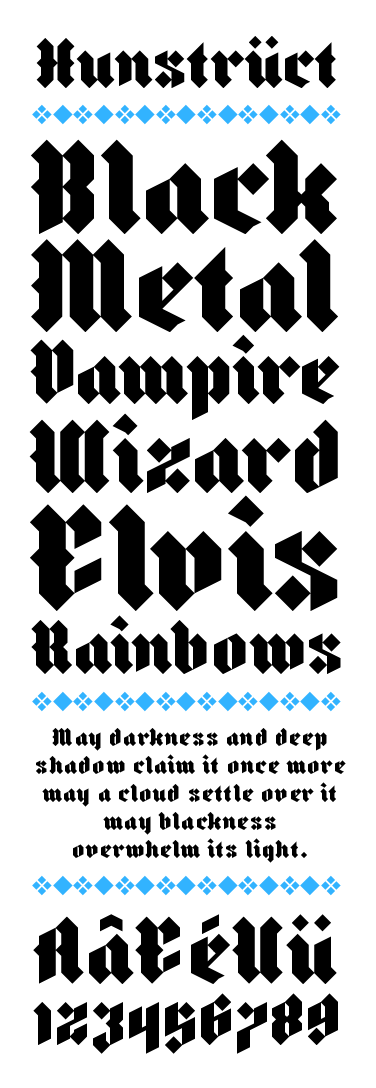
• Hunstrüct is my first attempt at designing a contemporary blackletter typeface within Fontstruct. The typeface draws inspiration from the long tradition of German Fraktur styled blackletters. The name Hunstrück is taken from a mountain range in Germany called the Hunsrück. Primarily I was aiming to build a face that would work well as a display type for gig posters and larger headlines but as I reworked the typeface I tried to strike a balance between text and display.
As for the kerning: definitely a font that could benefit from a letter-to-letter kerning function... Rumor has it this is on the roadmap for a future version of fontstruct.
I wish I had the same understanding of Blackletter styles to create something as good as this one, but I'm kind of "font blind" in that area. I'm a sans kind of guy :)
I love how the 2 diagonals in the upper left of the a, o, q and 8 make a subtle curve.
And I also dig how the circles around @ and copyright glyphs got solved. Simple yet very practical.
Have you sorted out the advanced spacing with it yet, as a few letters look a bit suspect.
I love the way how you've used the two angles to your advantage. Very pleasant result. The i j dots and the quotes are particularly well done.
@cayo I have to admit that I was a bit "font blind" myself to the blackletter. Only when I studied the amazing work of other Fontstruct blackletter pioneers did my eyes begin to focus on the silhouette of the form. As is the case with many things, just diving in and getting my hands dirty with it proved to be entirely eye opening. Still learning, but perhaps now I'm only half blind. I encourage you to explore the style. You'll learn a ton.
@djnippa Good sir, thrust upon this 'Struction your wisdom of advanced spacing. I've tried many things and now my quiver of ideas is depleted. Short of real kerning and spacing, I'm not sure where to push, pull, deflate, and heave.
Great simple/clever solutions all around, wonderful work!
Great samples too!
I've done a clone with all the spacing and kerning changes. Should I publish it so you can see?
I've basically changed the spacing on every character, and you can adjust the letter spacing using the Advanced Spacing in Preview to what ever you desire. I settled for 2.5.
@djnippa. Oh yes! Please publish and I'll make a clone to decipher your accomplishment. Then I'll apply to this font. Thank you so much for taking the time to add your skills to make this font better.
This is turning into a nice collaboration. Thanks to djnippa, I've updated B,E,F,P, Z and f. Original letters can still be found in the Extended set.
Love the new ones...esp the E.
perfect for ambigrams